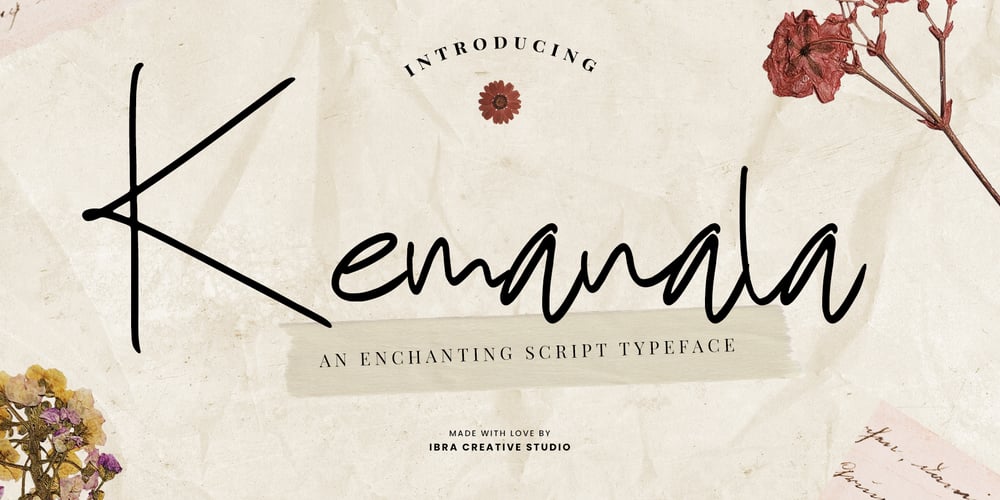
Kemanala Font Family was designed by Roisatul Azizah and published by IbraCreative. Kemanala contains 1 styles and family package options. Kemanala – An Enchanting Script TypefaceKemanala, an enchanting script typeface, dances gracefully across the page, intertwining elegance with whimsy. Its flowing and organic strokes exude a wonderful sense of fluidity, capturing the essence of handwritten beauty. Each letter in Kemanala is meticulously crafted, featuring delicate curves and stylish flourishes that add a touch of sophistication to any design. Whether adorning invitations, branding materials, or artistic projects, Kemanala effortlessly bridges the gap between timeless charm and contemporary style. With its versatility and charm, this script typeface invites users to weave a narrative of their own, making every written expression a journey into the realms of enchantment and creativity. Kemanala stands as a testament to the artistry of script typography, offering a harmonious balance between classic appeal and a touch of delightful modernity.Kemanala is perfect for branding projects, logo, wedding designs, social media posts, advertisements, product packaging, product designs, label, photography, watermark, invitation, stationery, game, fashion and any projects.Fonts include multilingual support for; Afrikaans, Albanian, Czech, Danish, Dutch, English, Estonian, Finnish, French, German, Hungarian, Italian, Latvian, Lithuanian, Norwegian, Polish, Portuguese, Slovak, Slovenian, Spanish, Swedish.